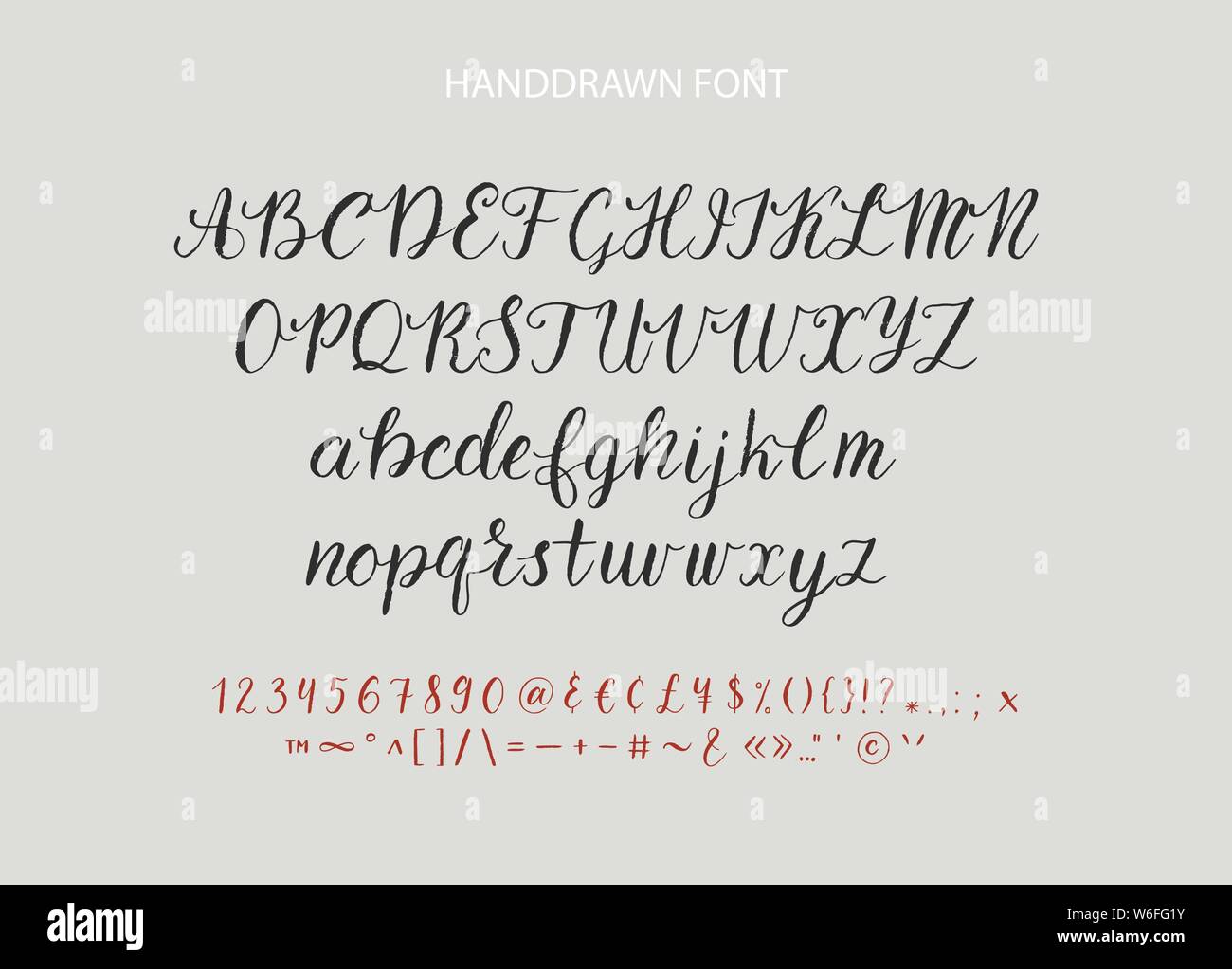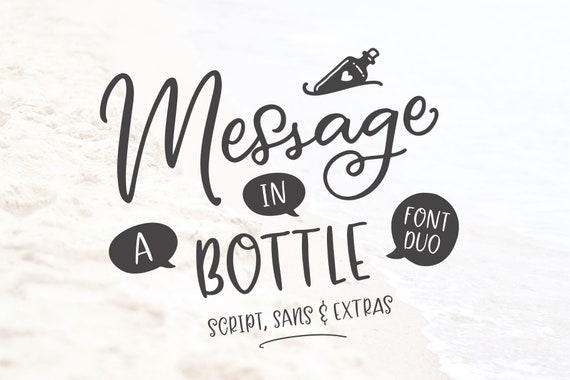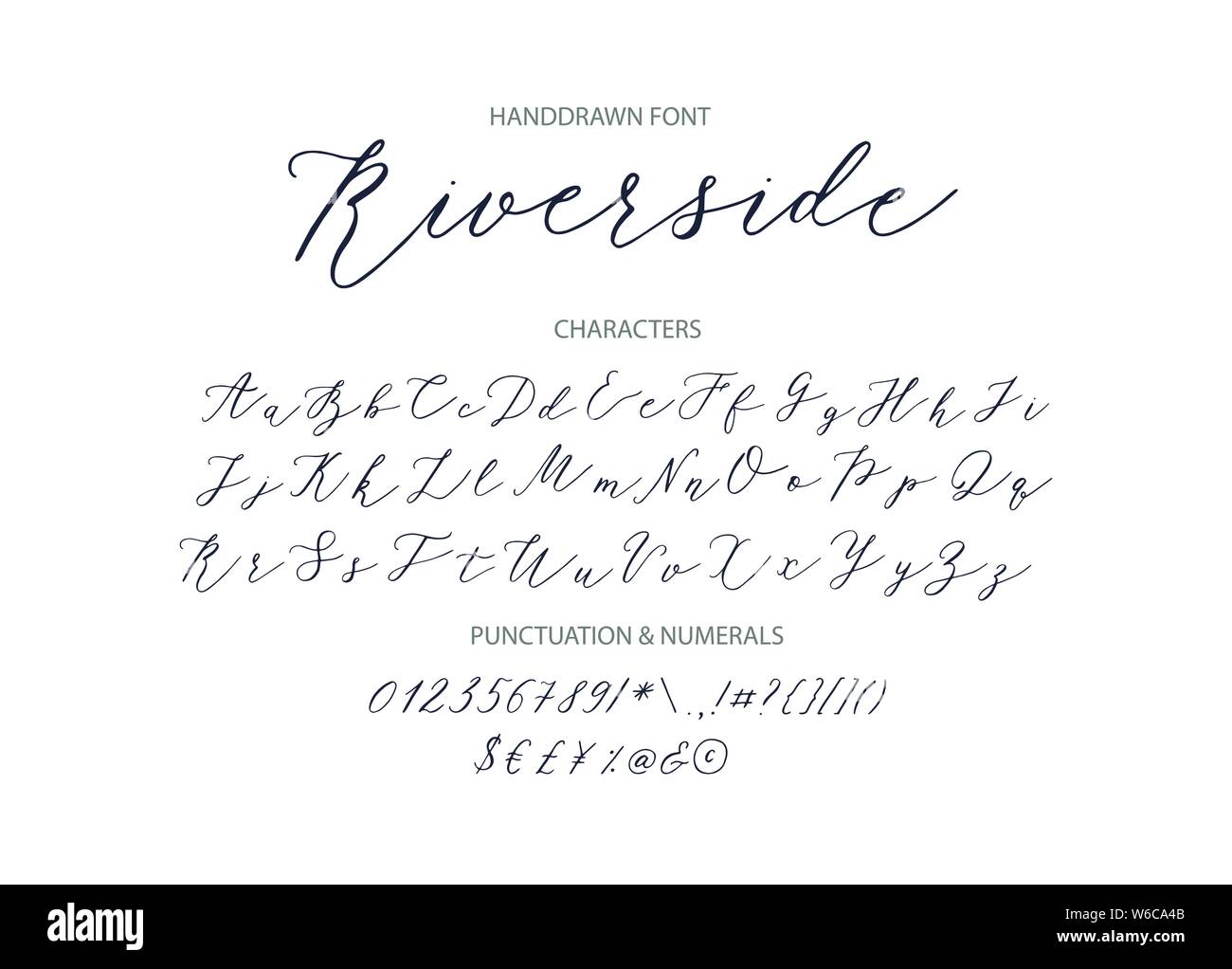
For more artistic styles you will want to look at calligraphy or hand-lettering. This style can end up looking very similar to hand-lettered fonts but the difference is that calligraphy is written and not drawn.
Beautiful Free Cursive Fonts Arizonia Font.
Handwritten Brush Style Modern Calligraphy Cursive Font Calligraphy Alphabet Cute Calligr Brush Lettering Alphabet Hand Lettering Alphabet Lettering Alphabet. Modern calligraphy relies on certain principles of traditional calligraphy. Cursive Font Handwriting Text Generator.
You can use this font for any. Arizonia is a beautiful modern font that can be used for any script. However it can provide you with more creative freedom.
We have 613 free Modern Calligraphy Cursive Fonts to offer for direct downloading 1001 Fonts is your favorite site for free fonts since 2001. It comer with wonderful swashes that will take your designs to the next level. Cursive fonts mimic the style of human penmanship where the letters flow together.
Modern calligraphy is any calligraphy style that does not follow the fundamental rules of traditional calligraphy scripts such as Copperplate Spencerian Italic Blackletter etc. Welcome to MyFonts the 1 place to download great font-face webfonts and desktop fonts. Modern Brush Fonts Some Free Free Brush Script Font Chalkboard Fonts Brush Font.
The cursive handwriting style is functional and intended to be used for everyday writing. Bungalow is a gorgeous and modern script font. Modern calligraphy typefaces differ from traditional calligraphy in that they do not adhere to specific lettering rules.
Letters may be joined or unjoined. Click to find the best 990 free fonts in the Modern Calligraphy style. Maybird Font - Modern Handwritten Script Font Modern Calligraphy Cricut Fonts Wedding Font Elegant Font KAFontDesigns 5 out of 5.